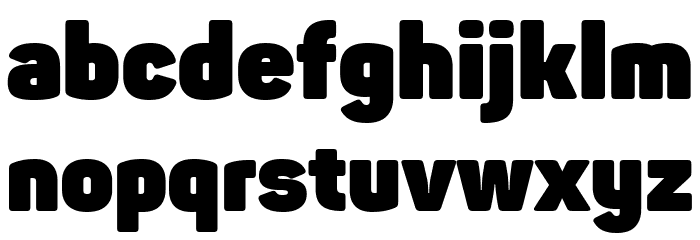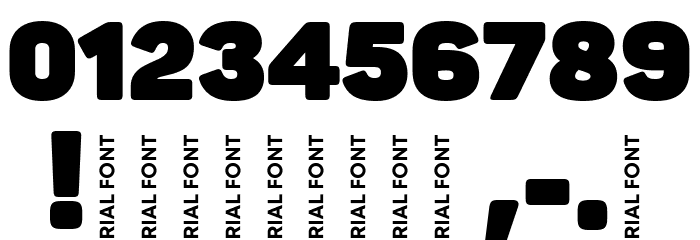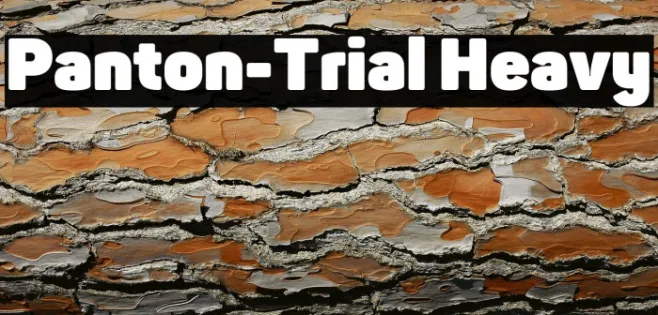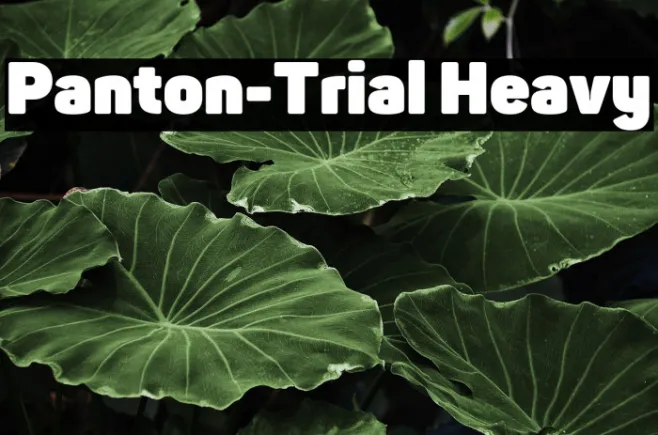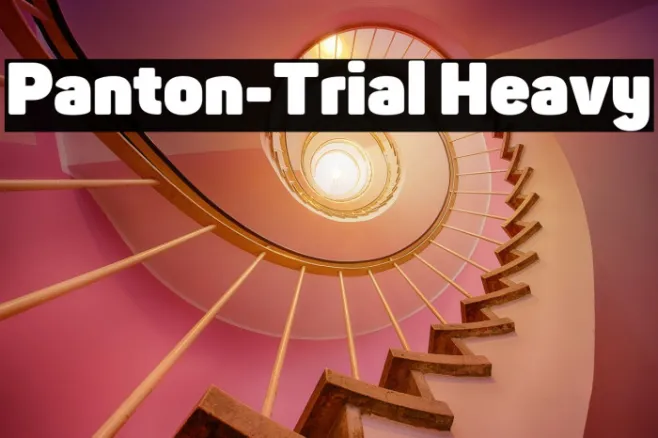
Panton-Trial Heavy Font
This font features a bold and heavy design with rounded edges, giving it a friendly yet impactful appearance. The characters are wide and have a strong presence, making them ideal for grabbing attention. The uppercase and lowercase letters maintain a consistent weight, ensuring readability and uniformity across different text sizes. The numerals are equally bold, complementing the alphabetic characters. Special characters are designed to match the overall style, providing a cohesive look. This font is versatile, suitable for various design projects that require a modern and robust typeface.
A bold, rounded font with a strong and friendly appearance.
- Proposed Projects: Ideal for branding, advertising, headlines, and poster designs.